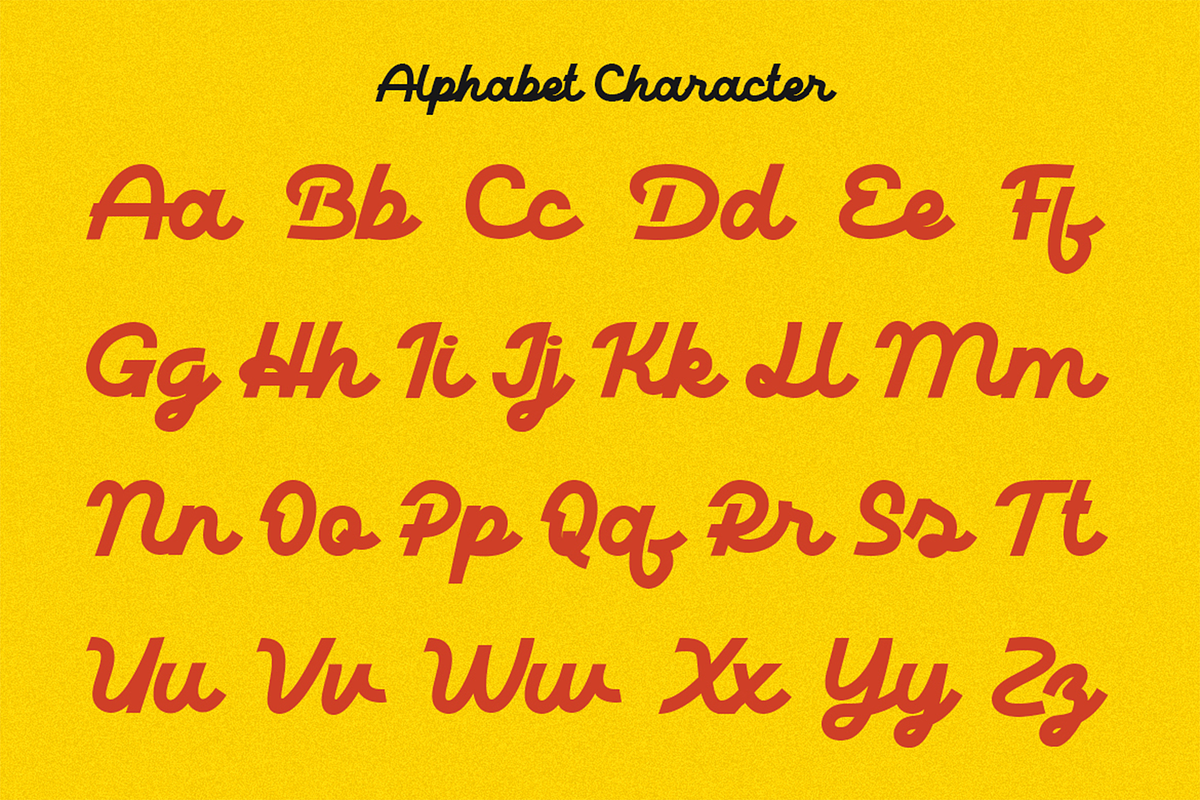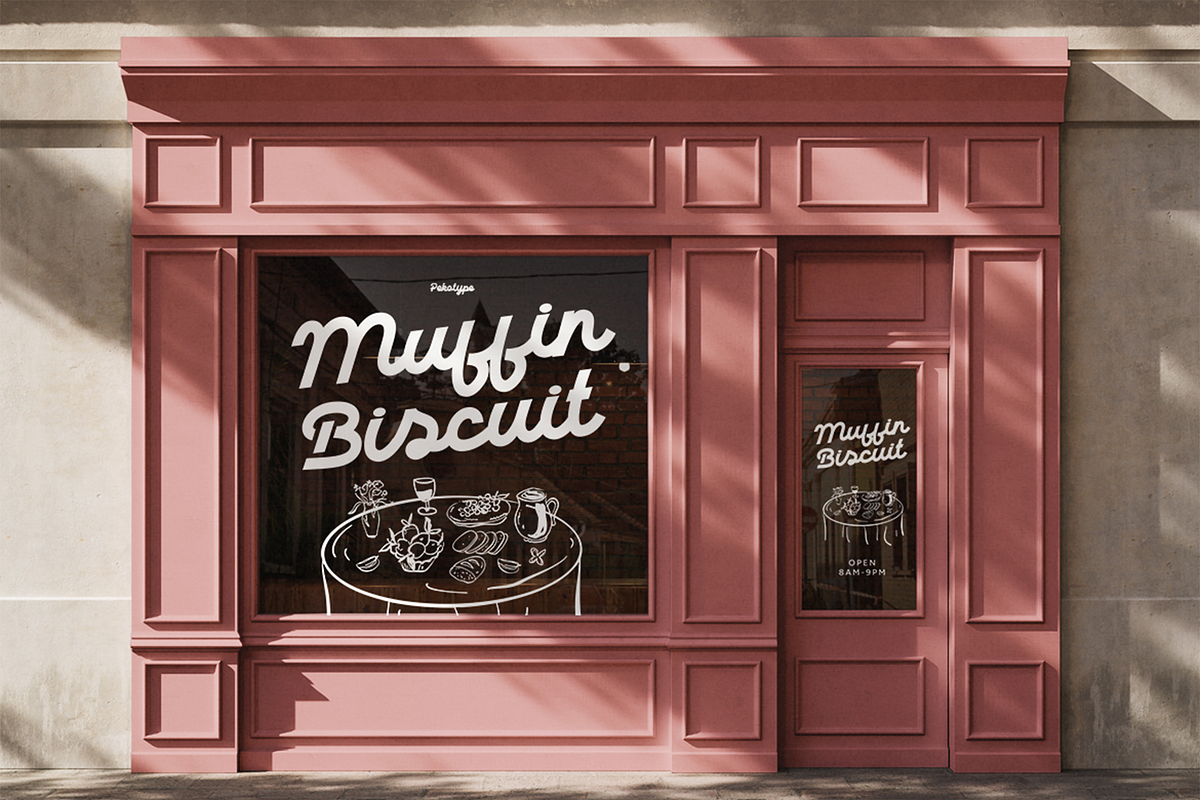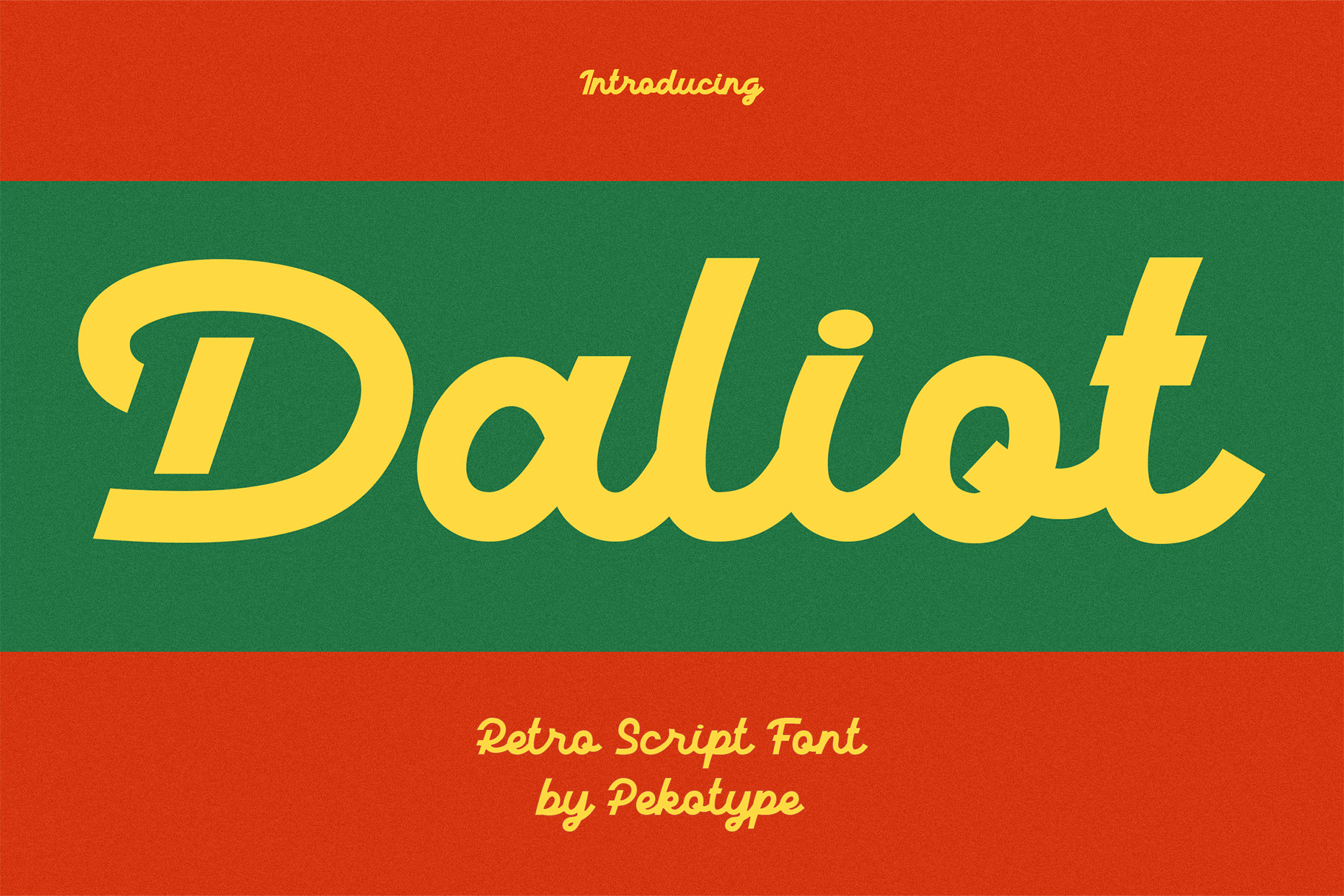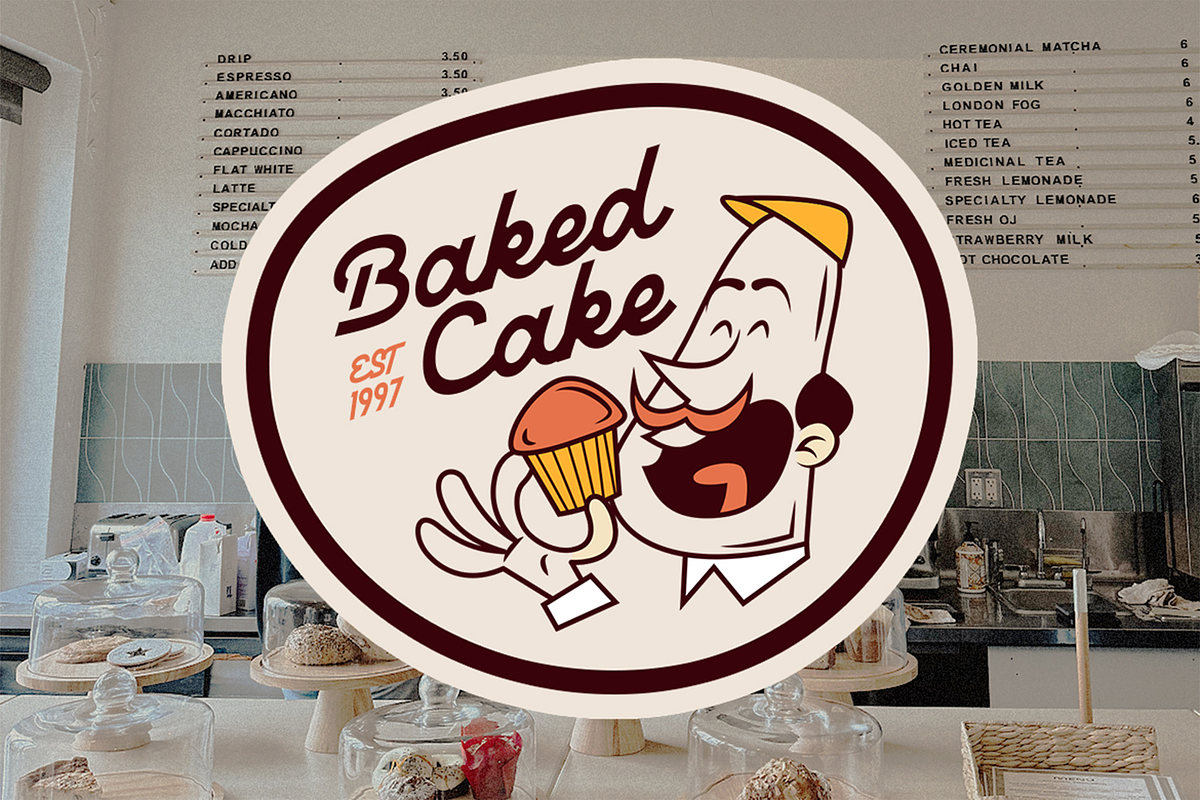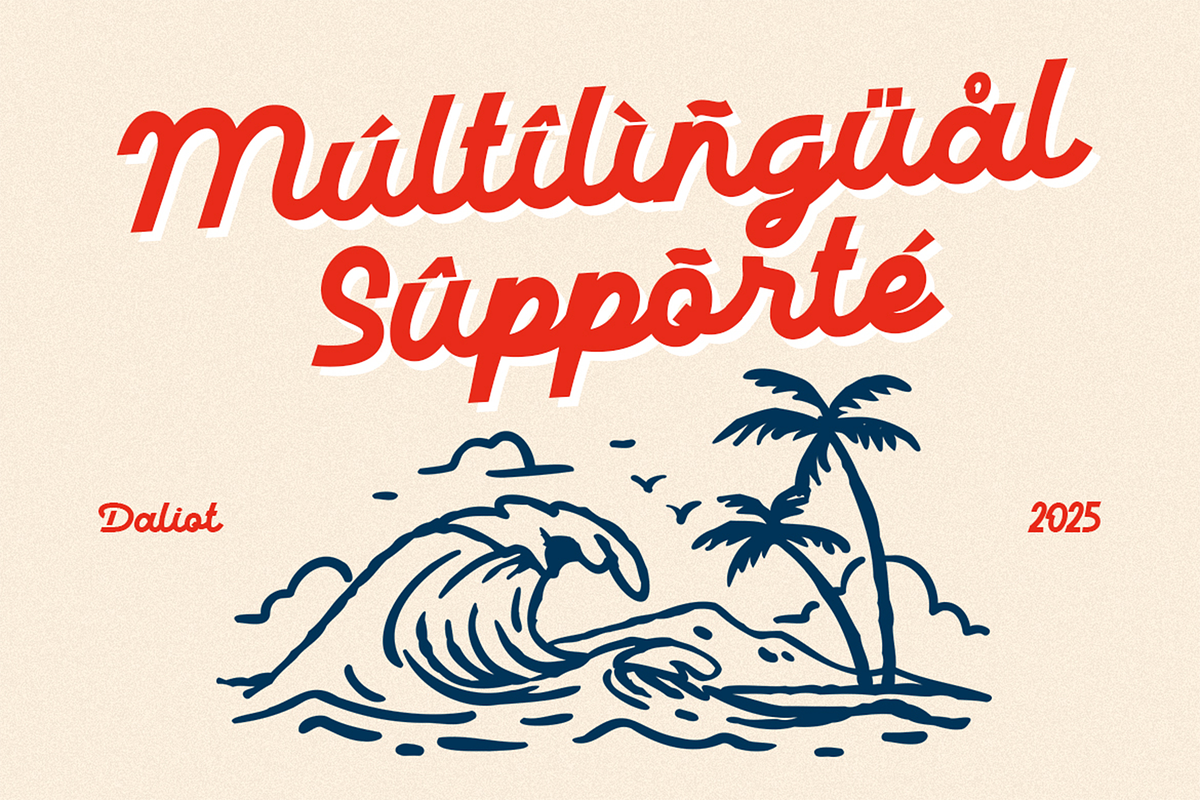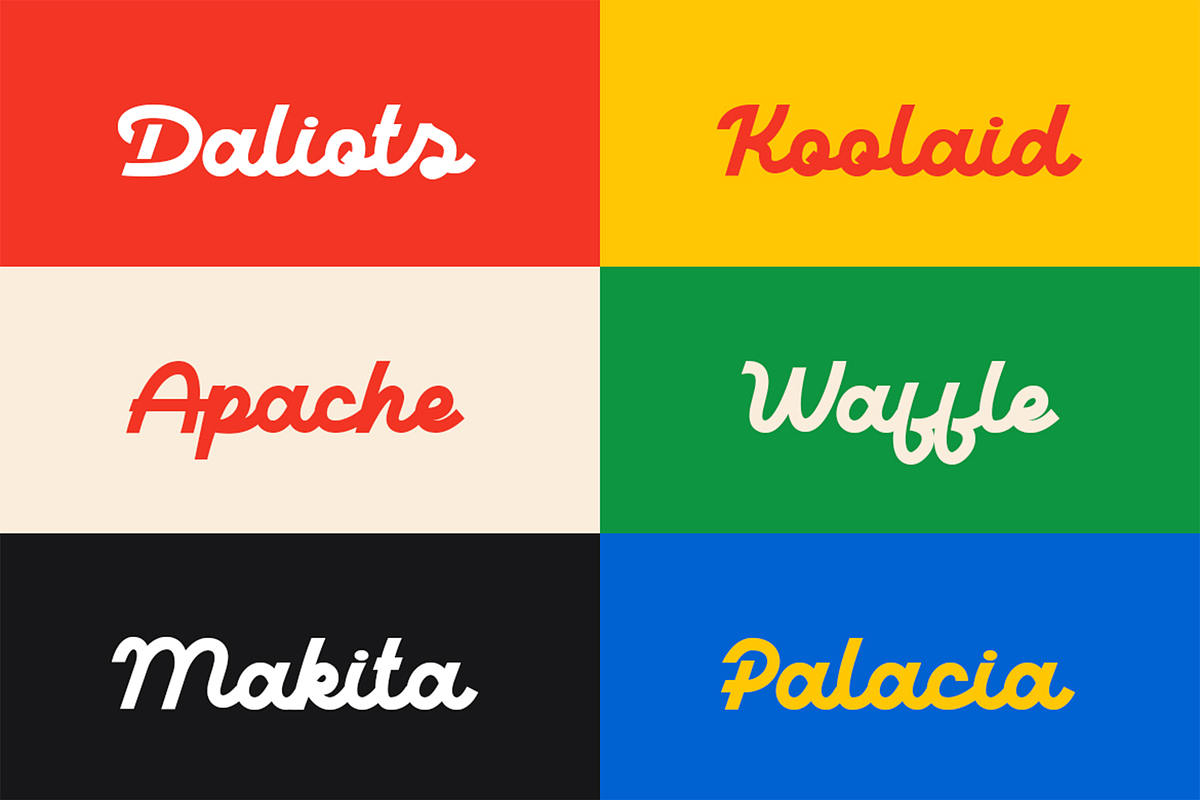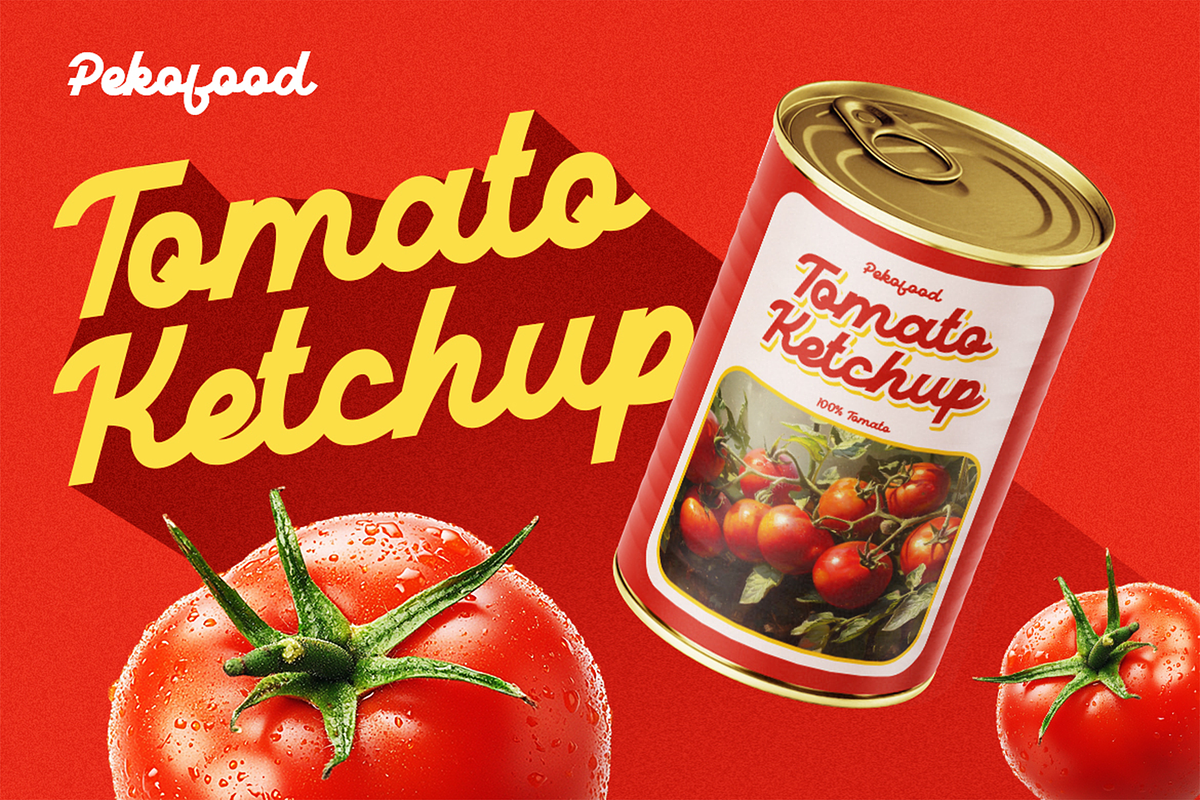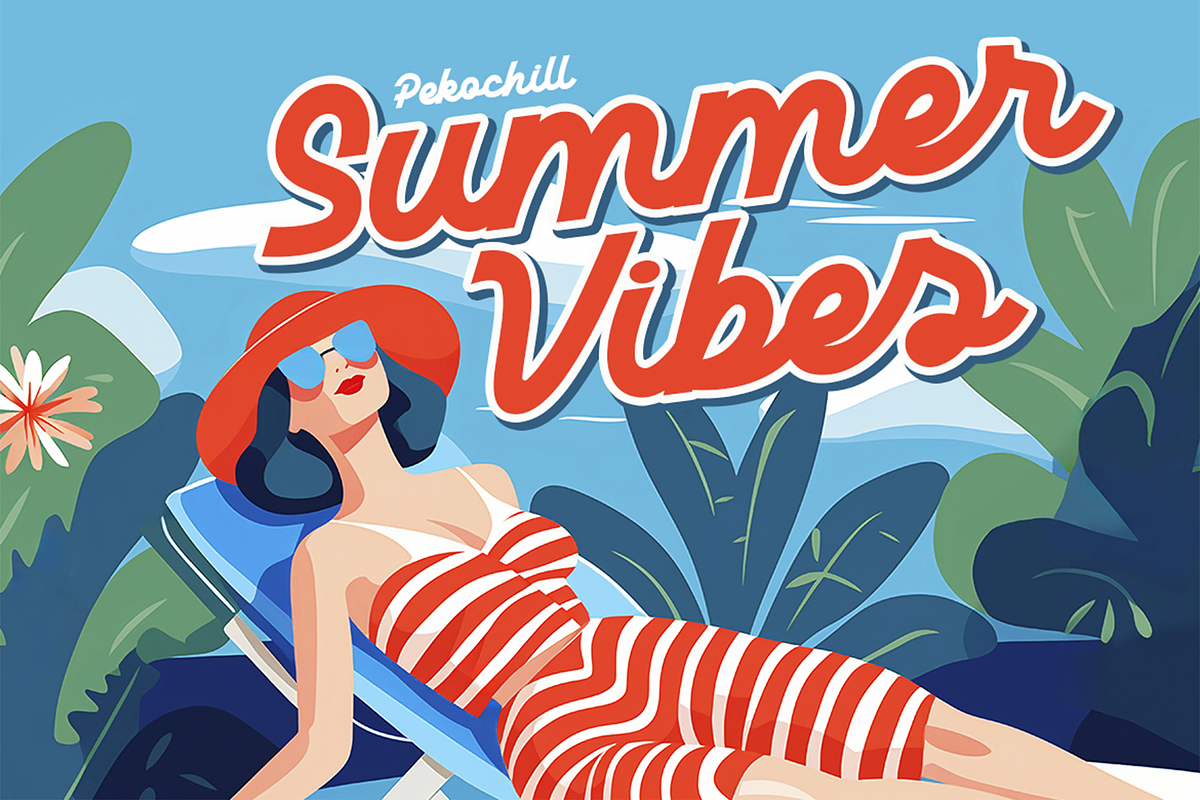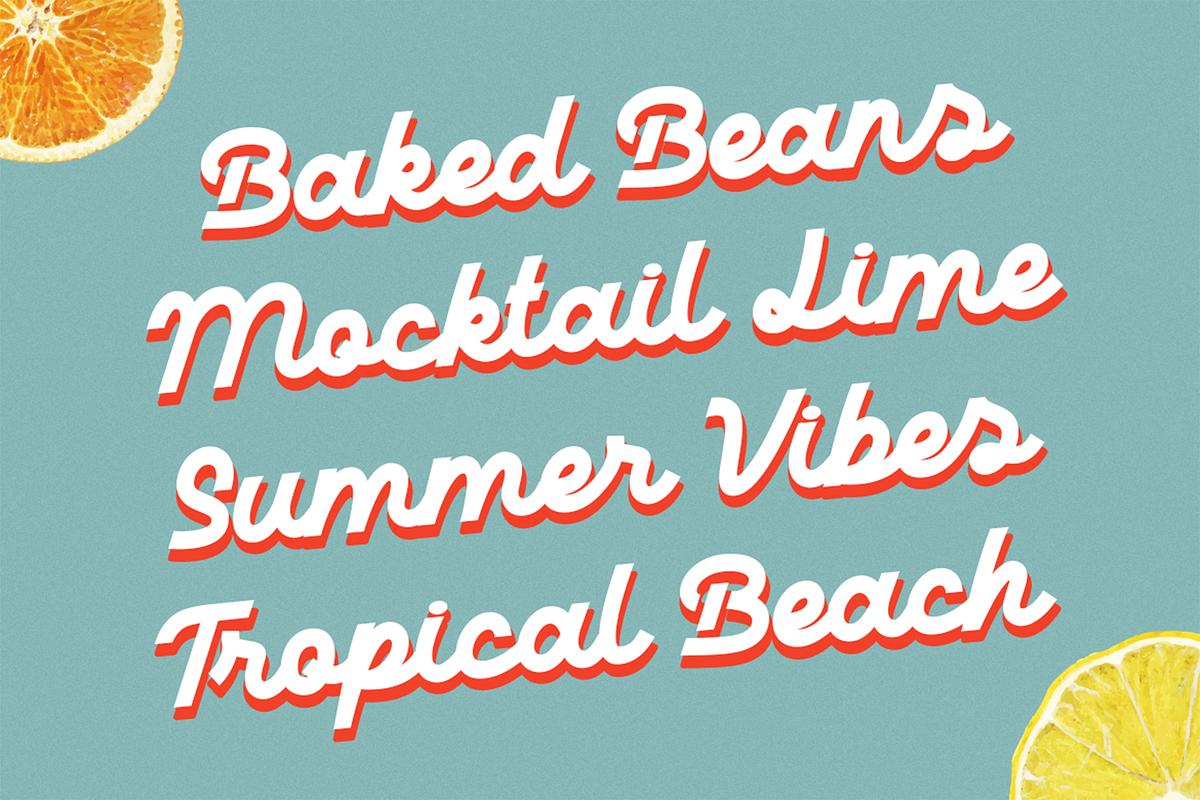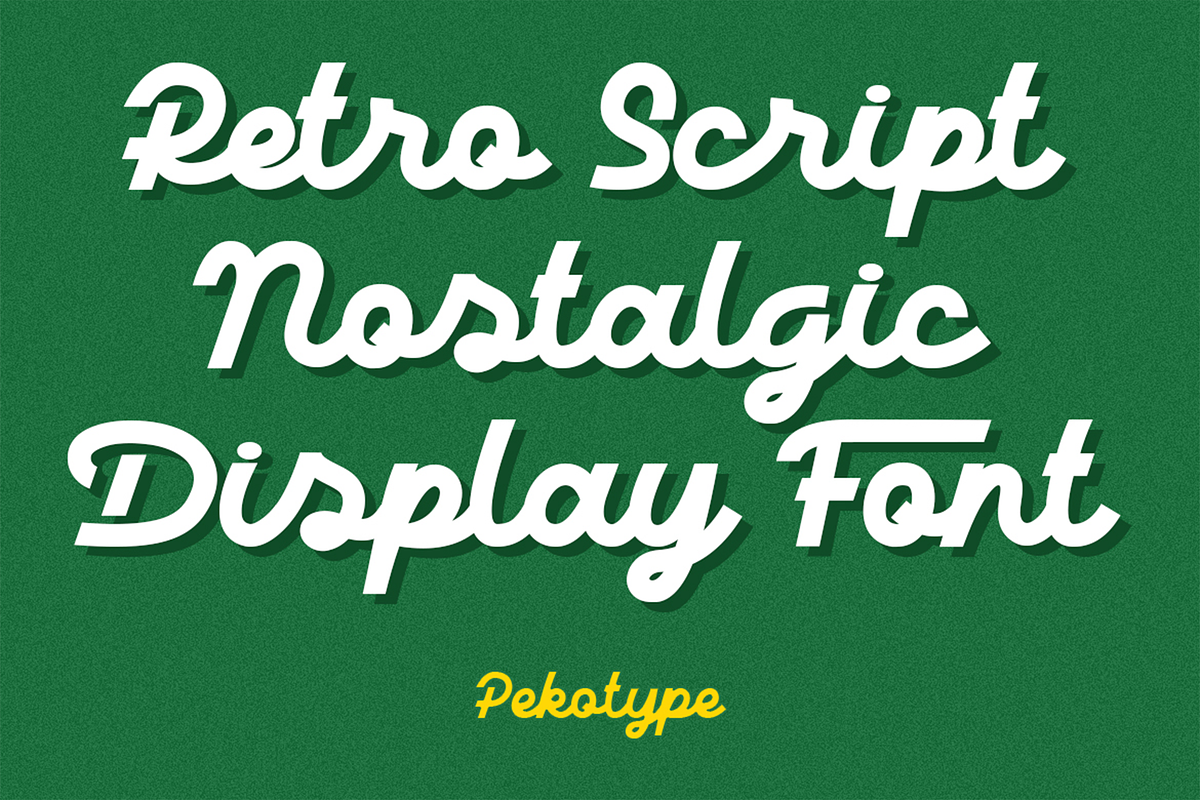
Daliot - Retro Script Display Font
DALIOT – Bold Retro Script Font with Handwritten Charm
Introducing DALIOT, a bold retro script display font that captures the warmth of handwritten nostalgia with a strong modern twist. Designed to bring a sense of personality and flair, DALIOT features flat-ended strokes, smooth curves, and a bold structure that makes every word pop.
Perfectly crafted for branding, logos, packaging, posters, promotional materials, and social media, DALIOT adds an authentic retro vibe that draws attention while staying stylish and readable. Its handwritten character and vintage charm make it ideal for designs that need a touch of personality and a dash of old-school cool.
Whether you're designing a retro cafe logo, a vintage-themed poster, or eye-catching merchandise packaging, DALIOT is your go-to script font. Its nostalgic look and bold presence ensure your message stands out in any design.
- Number, symbol, & punctuation
- Flat-ended terminals for a unique aesthetic
- Great for display and headline use
- Ideal for branding, packaging, posters, and more
Make your designs unforgettable with DALIOT — a script font that blends retro flair with bold confidence. Add it to your font collection today and let your creativity flow!